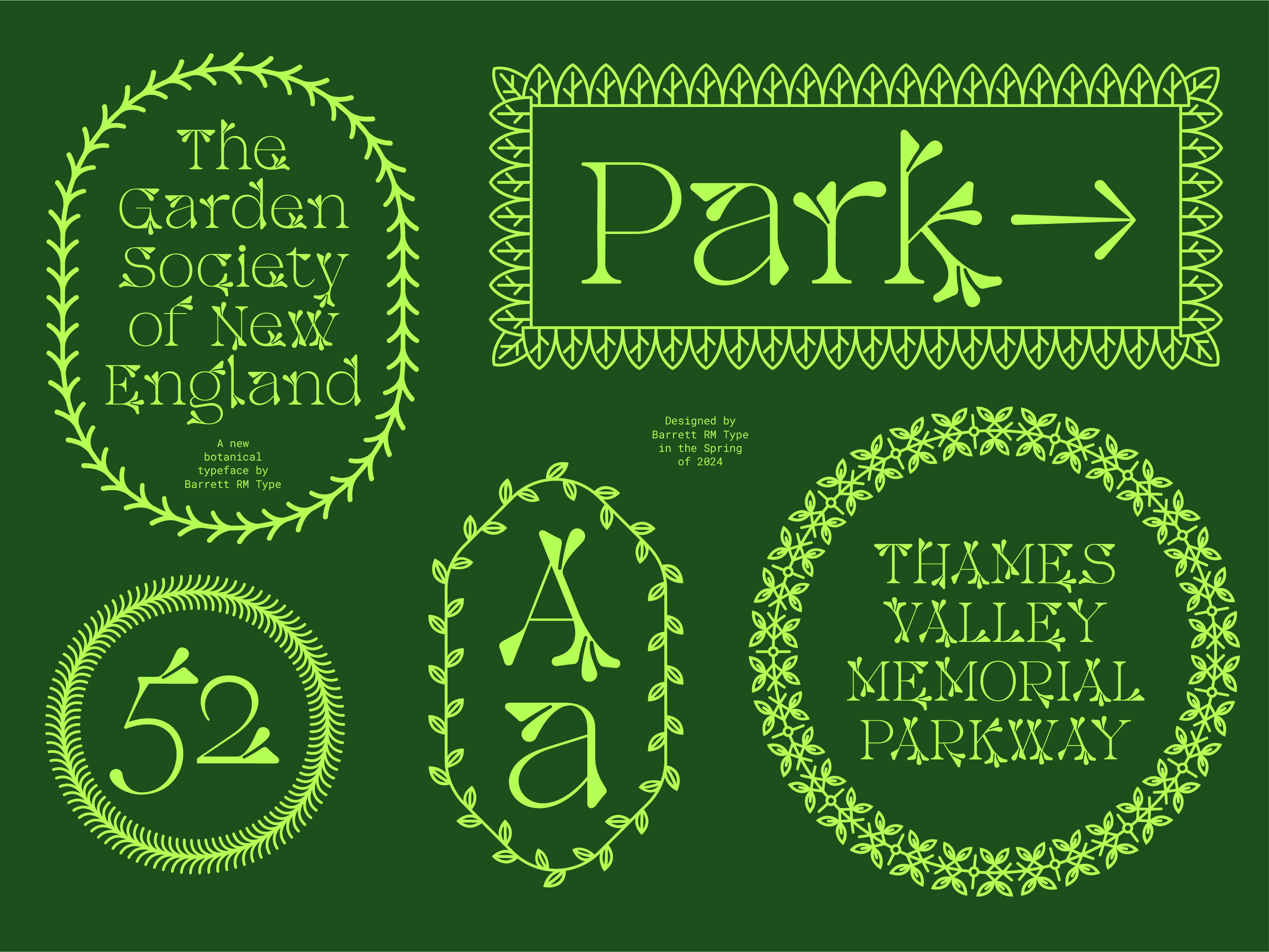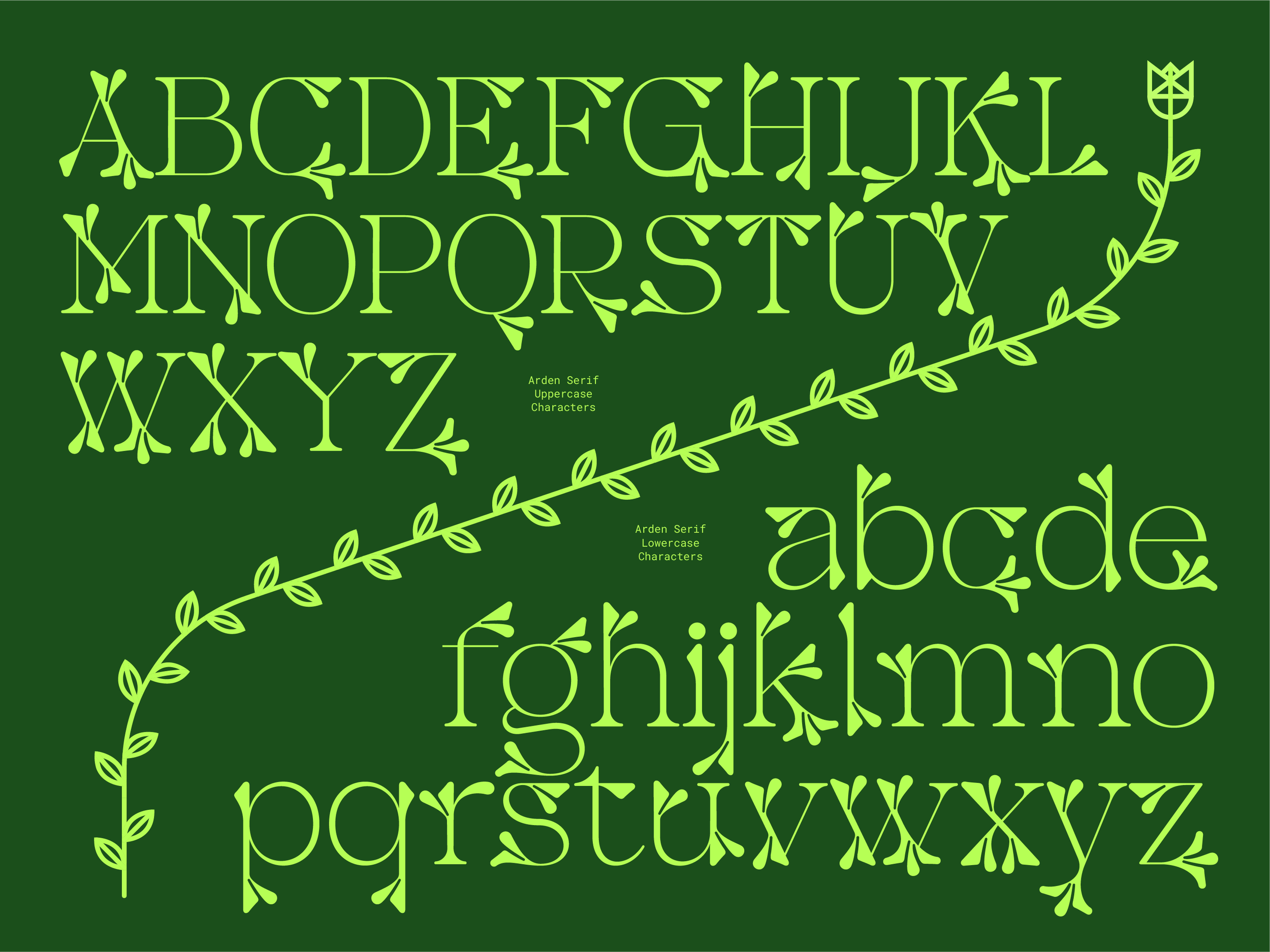
Arden Serif is a unique display typeface that mixes the natural with the typographic. Each letterform contains blossoming serif elements that lend botanical energy to logotypes, posters, or large text in any design.